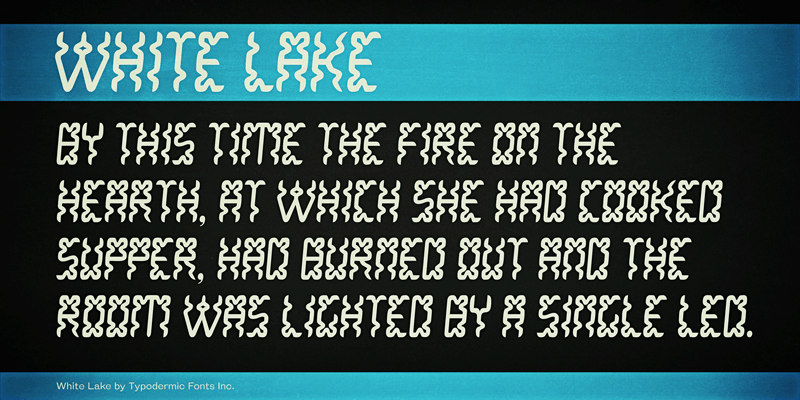
White Lake is all about the ramen noodles before the boiling water is added. This font includes a license that allows free commercial use: sometimes referred to as a desktop license. This allows you to install the font on a computer and use it to create posters, web graphics, game graphics, t-shirts, videos, signs, logos and more. Read the license agreement for details. If you'd like to embed this font in an app, ebook, on the web or anything that's not covered by the desktop license agreement, visit the link below. You'll find distributors who offer different types of licenses or you can contact me for help. http://typodermicfonts.com/white-lake/ |